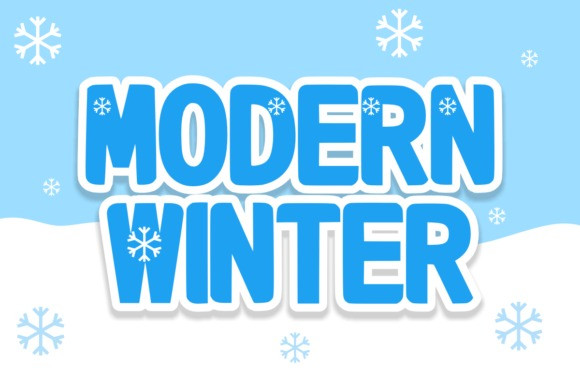
Modern Winter Font
Modern Winter Font a bold and frosty display typeface designed for the peak of the season.
This Modern Winter typeface features thick, rounded characters with a subtle 3D shadow that makes your text stand out against snowy backgrounds. The Modern Winter font is perfect for winter sports branding, holiday sale announcements, and cozy cabin-themed designs.
To make the Modern Winter typeface truly “glisten,” try adding a sparkling inner glow or tiny star dingbats around the edges of the letters.